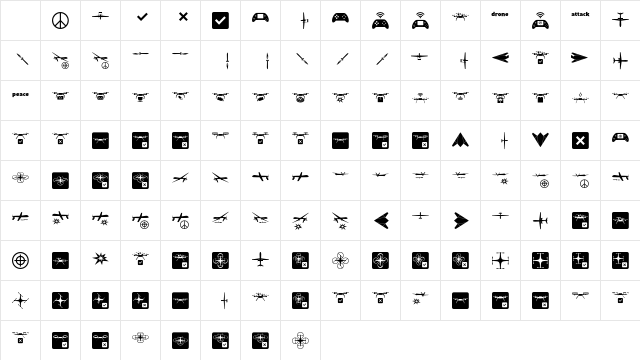
Complete Drone Attack Regular glyph index. Displaying only characters natively supported by Drone Attack Regular font.
Drone Attack is a composed and adaptable typeface that performs quietly and consistently across a wide range of design contexts.